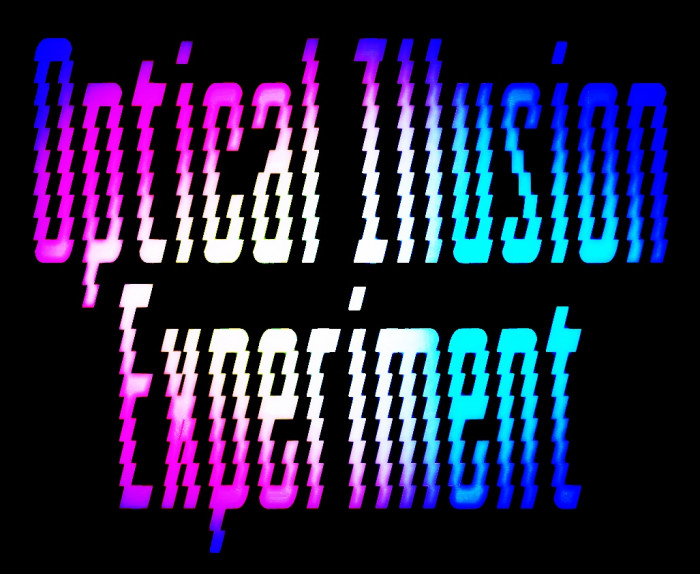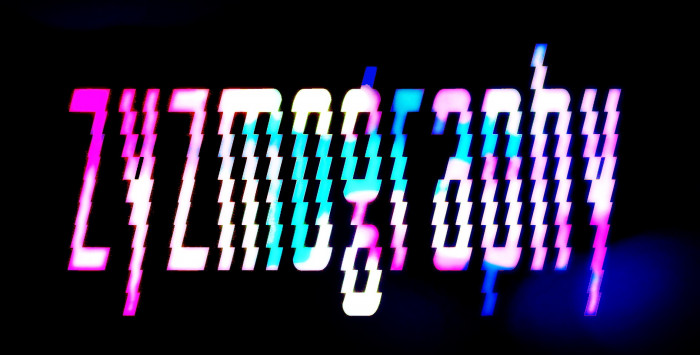
Optical experiment...
Whoa, quite a well executed and clever experiment~
@tortoiseshell: Thanks, compa! This font is the kind of experiments you want to do but don't quite know when to do it. Now it's done. Glad you like it.
very cool glitch effect, it's very trendy, I like it. I will make Cyrillic as soon as possible, if you do not mind and do not plan it yourself.
@Dmitriy Sychiov: Thank you, pal! Go ahead with the Cyrillic set.
nice!
@jirinvk: Thank you very much!
Congratulations! FontStruct Staff have deemed your FontStruction worthy of special mention. “zyzmo eYe /FS” is now a Top Pick.
Very electric :-)
Congratulations on the TP!
@meek: Thank you veeery much, dear Boss! I feel very honoured.
@riccard0: Thanks a lot. But it's only an optical experiment without no pretensions than fun and creativity.
Very effective, @elmoyenique, it's buzzing!
Thanks a million, compañero! My cell phone charges itself when I open this font ?.